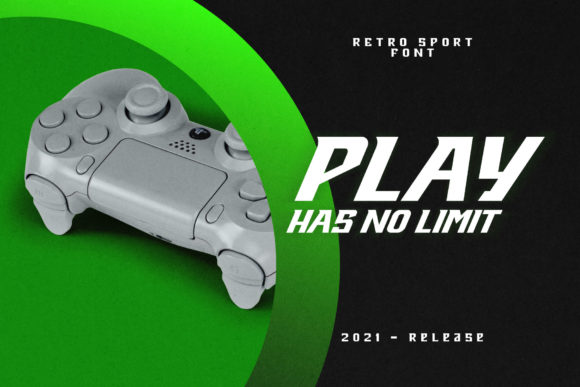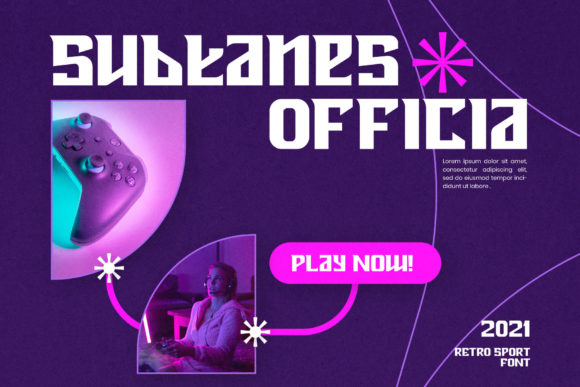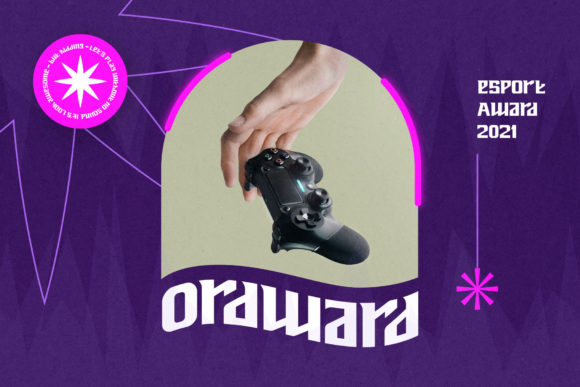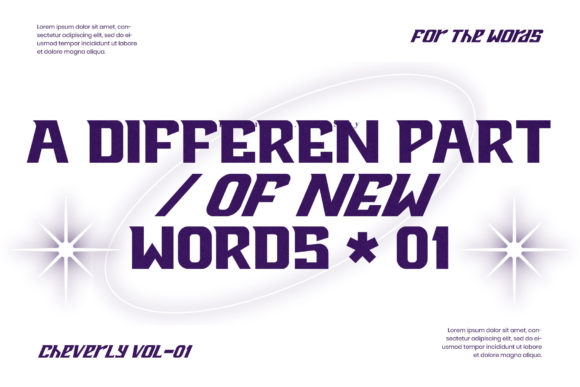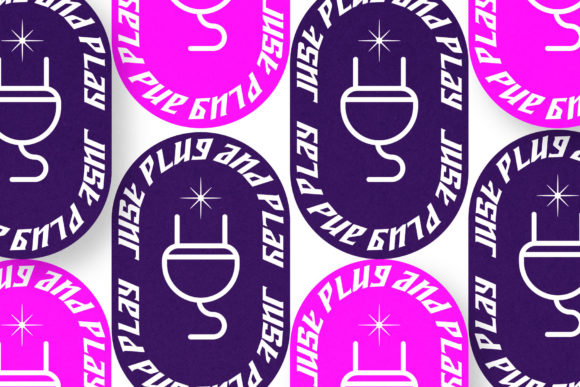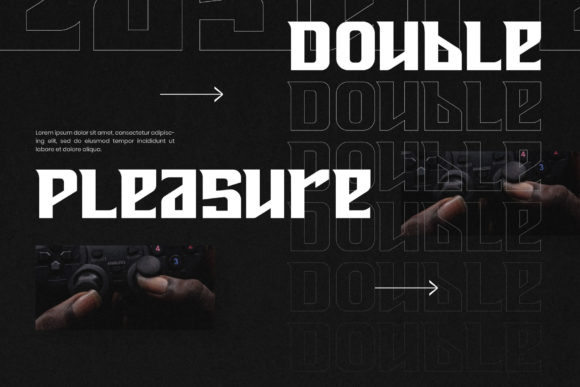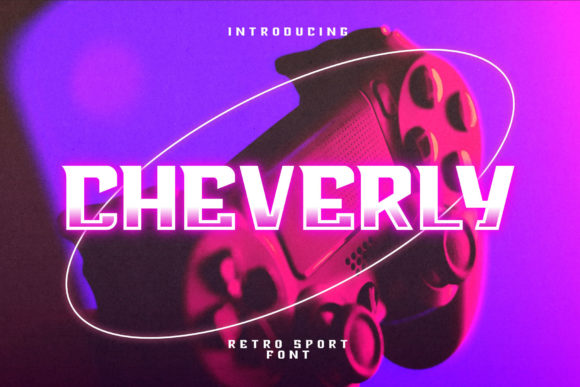
Introducing Cheverly Font: The Bold, Retro-Styled Display Font You Need
Are you tired of using the same old fonts in your designs? Do you want to add a touch of retro flair to your creations? Look no further than Cheverly Font, a bold, retro-styled, and cool display font that’s sure to make your designs stand out. In this article, we’ll take a closer look at Cheverly Font, its features, and how you can use it to take your designs to the next level.
What is Cheverly Font?
Cheverly Font is a expertly designed display font that’s perfect for creating bold and eye-catching designs. With its retro-styled aesthetic, this font is sure to add a touch of nostalgia and fun to any project. Whether you’re working on a logo, poster, or social media graphic, Cheverly Font is the perfect choice.
Key Features of Cheverly Font
- Bold and Attention-Grabbing: Cheverly Font is a bold font that’s designed to grab attention. Its thick lines and retro-styled aesthetic make it perfect for creating eye-catching designs.
- Retro-Styled: Cheverly Font has a fun and nostalgic feel that’s perfect for creating designs that are retro-inspired.
- Cool and Edgy: This font has a cool and edgy vibe that’s perfect for designers who want to add a touch of personality to their designs.
- Versatile: Cheverly Font can be used on a variety of design projects, from logos and posters to social media graphics and more.
How to Use Cheverly Font in Your Designs
Cheverly Font is easy to use and can be incorporated into a variety of design projects. Here are a few ideas to get you started:
- Logos: Use Cheverly Font to create a bold and eye-catching logo that’s sure to stand out.
- Posters: Add a touch of retro flair to your posters with Cheverly Font.
- Social Media Graphics: Use Cheverly Font to create eye-catching social media graphics that are sure to grab attention.
- Headings and Titles: Use Cheverly Font to add a touch of personality to your headings and titles.
Benefits of Using Cheverly Font
There are many benefits to using Cheverly Font in your designs. Here are a few:
- Unique and Creative: Cheverly Font is a unique and creative font that’s sure to add a touch of personality to your designs.
- Time-Saving: With Cheverly Font, you can create professional-looking designs in no time.
- Easy to Read: Despite its bold and retro-styled aesthetic, Cheverly Font is easy to read and understand.
Tips and Tricks for Using Cheverly Font
Here are a few tips and tricks to keep in mind when using Cheverly Font:
- Use it Sparingly: While Cheverly Font is bold and eye-catching, it can be overwhelming if used too much. Use it sparingly to add a touch of personality to your designs.
- Pair it with Other Fonts: Cheverly Font pairs well with other fonts, so don’t be afraid to experiment with different combinations.
- Experiment with Colors: Cheverly Font looks great in a variety of colors, so experiment with different color combinations to find the one that works best for your design.
Cheverly Font is a bold, retro-styled, and cool display font that’s perfect for designers who want to add a touch of personality to their creations. With its unique and creative aesthetic, this font is sure to make your designs stand out. Whether you’re working on a logo, poster, or social media graphic, Cheverly Font is the perfect choice. So why wait? Download Cheverly Font today and start creating designs that are out of this world!